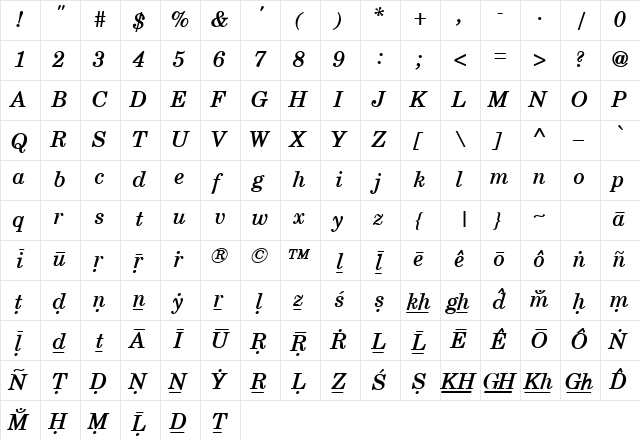
DV1-TTGanesh Bold
Design Context for DV1-TTGanesh Typeface
DV1-TTGanesh offers clean, dependable letterforms without strong stylistic allegiance, making it a practical choice for designers who need flexibility. Its bold stroke weight gives it real presence on the page.